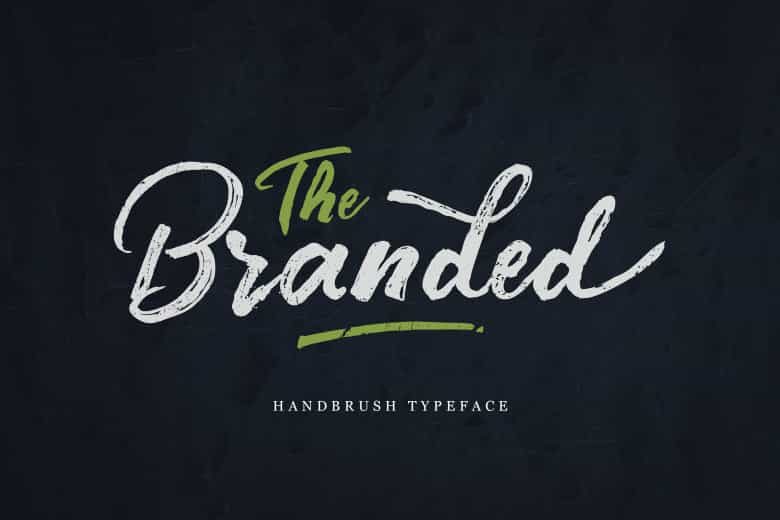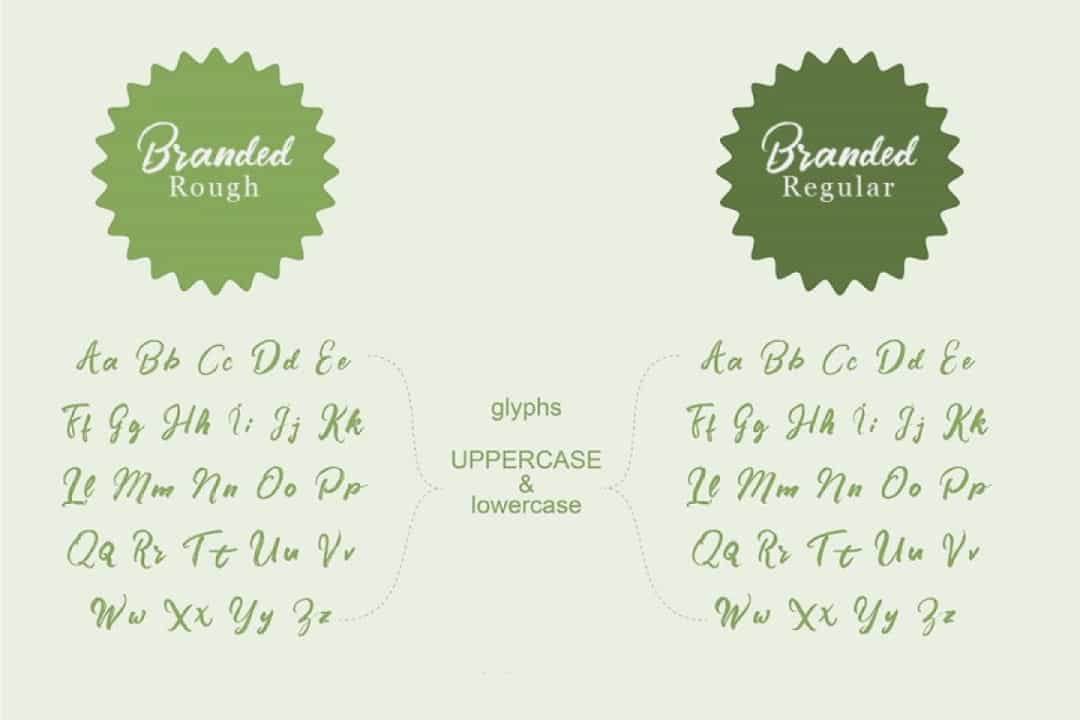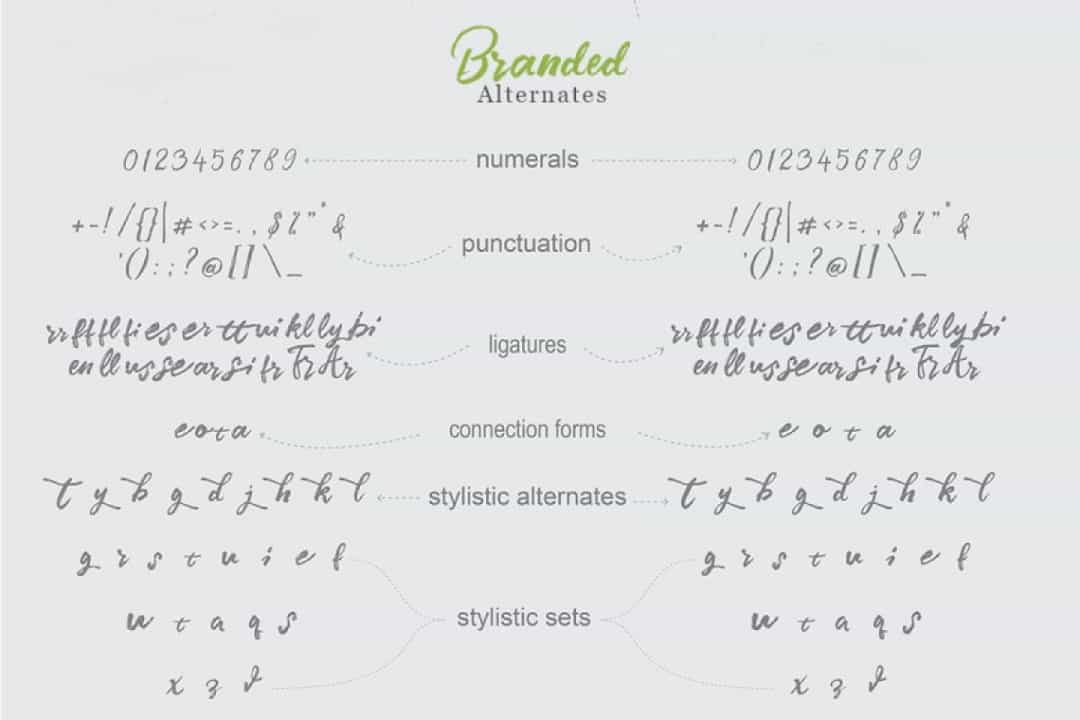
Branded is an innovative and modern Handbrush Font script which features two different styles – rough and smooth styles as well as an extra brush which creates the impression of natural writing – creating an alternative, fresh, vintage aesthetic perfect for craftspeople or designers working on diverse projects. This font will bring fresh new style to any of your designs or crafts projects!